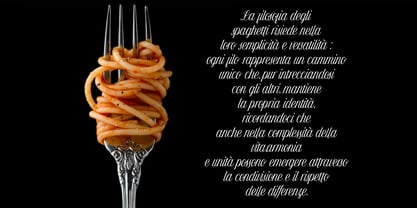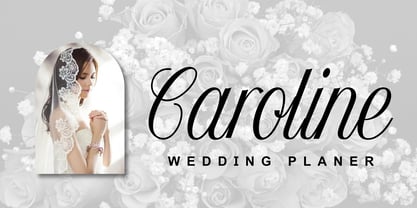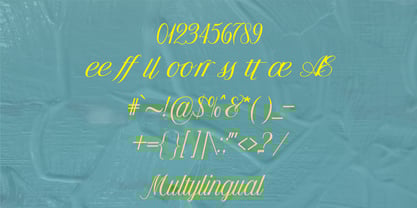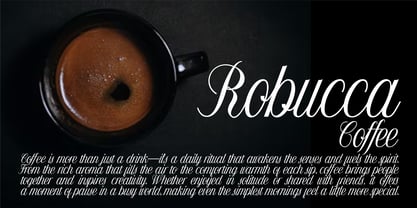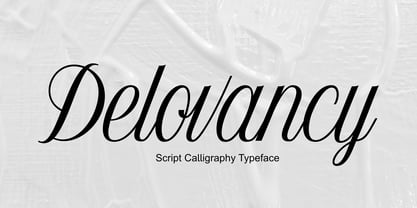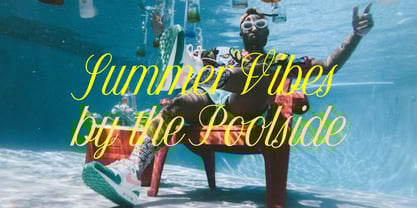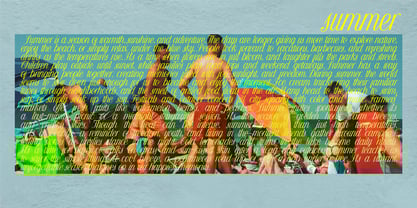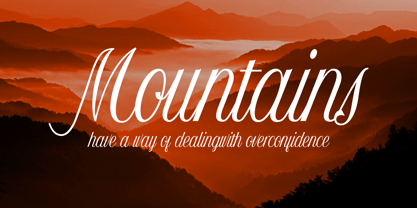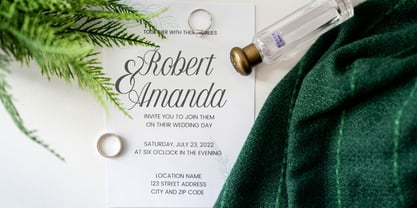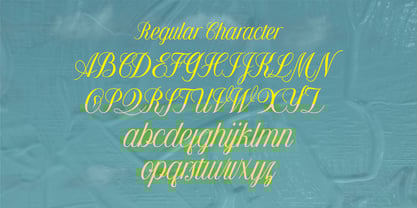
Delovancy
by Zamjump
The Delovancy Font Family was designed by Zamjump, Ahmad Zamzami and published by Zamjump. Delovancy contains 1 styles. More about this family
Crafted with balance and precision, Delovancy captures the essence of refined script calligraphy without overwhelming flourishes. Its minimalist approach gives it a polished and contemporary look, making it ideal for logo designs, boutique branding, editorial titles, and stylish social media graphics. The included ligatures enhance natural flow and harmony between letters, creating visually pleasing compositions. With multilingual support, Delovancy ensures your message reaches a global audience with consistency and charm. This font is more than just a typeface—it’s a design companion that brings elegance, clarity, and warmth to every project it touches.